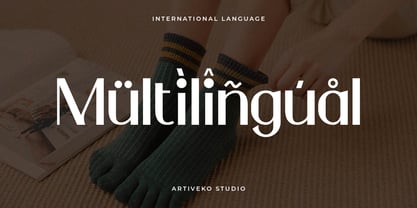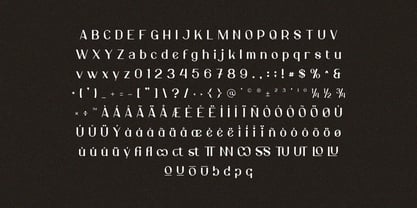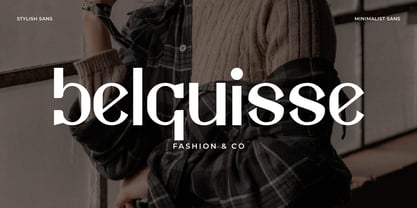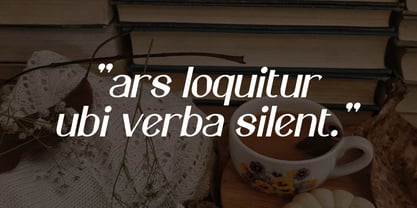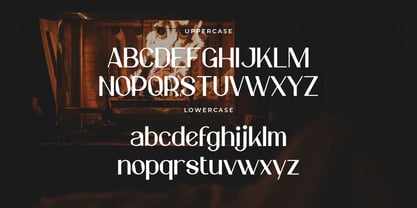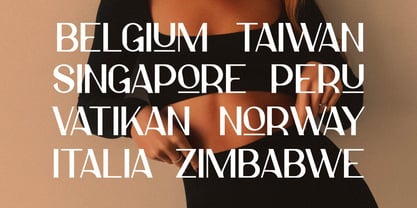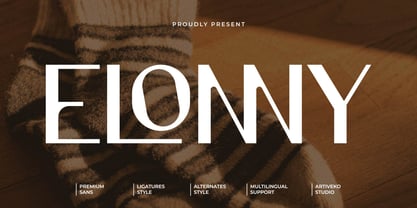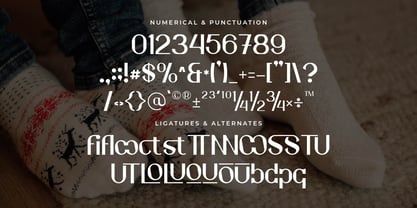
Elonny
by Artiveko
The Elonny Font Family was designed by Iwan Alwan and published by Artiveko. Elonny contains 2 styles and family package options. More about this family
Elonny is a minimalist sans serif font designed with clarity and balance in mind. With smooth curves, open letterforms, and a perfectly even rhythm, Elonny brings a sense of calm precision to your designs. It’s the ideal typeface for modern branding, editorial layouts, UI/UX interfaces, packaging, and lifestyle visuals that seek a clean and professional feel.
Stripped of unnecessary details but rich in subtle character, Elonny combines functionality with elegance. It features a full set of uppercase and lowercase letters, multilingual support, and thoughtfully designed alternates and ligatures. Each letter is crafted to provide readability while maintaining a sleek, stylish presence on any screen or page. Whether you're working on a startup identity, a modern website, or a minimalist portfolio, Elonny is your go-to font for timeless simplicity with a contemporary edge.